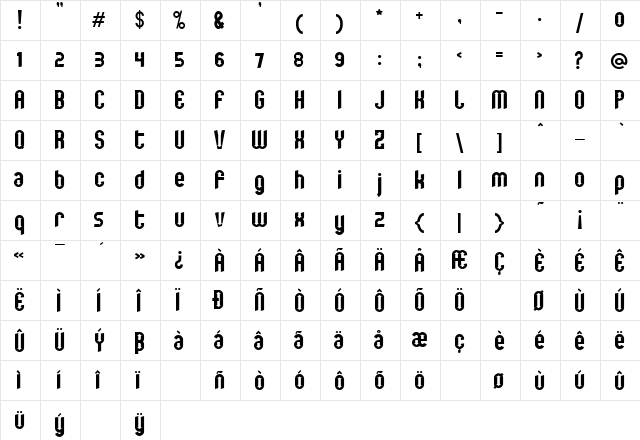
You are the one Regular
Design Context for You are the one Typeface
You are the one is a composed and adaptable typeface that performs quietly and consistently across a wide range of design contexts.